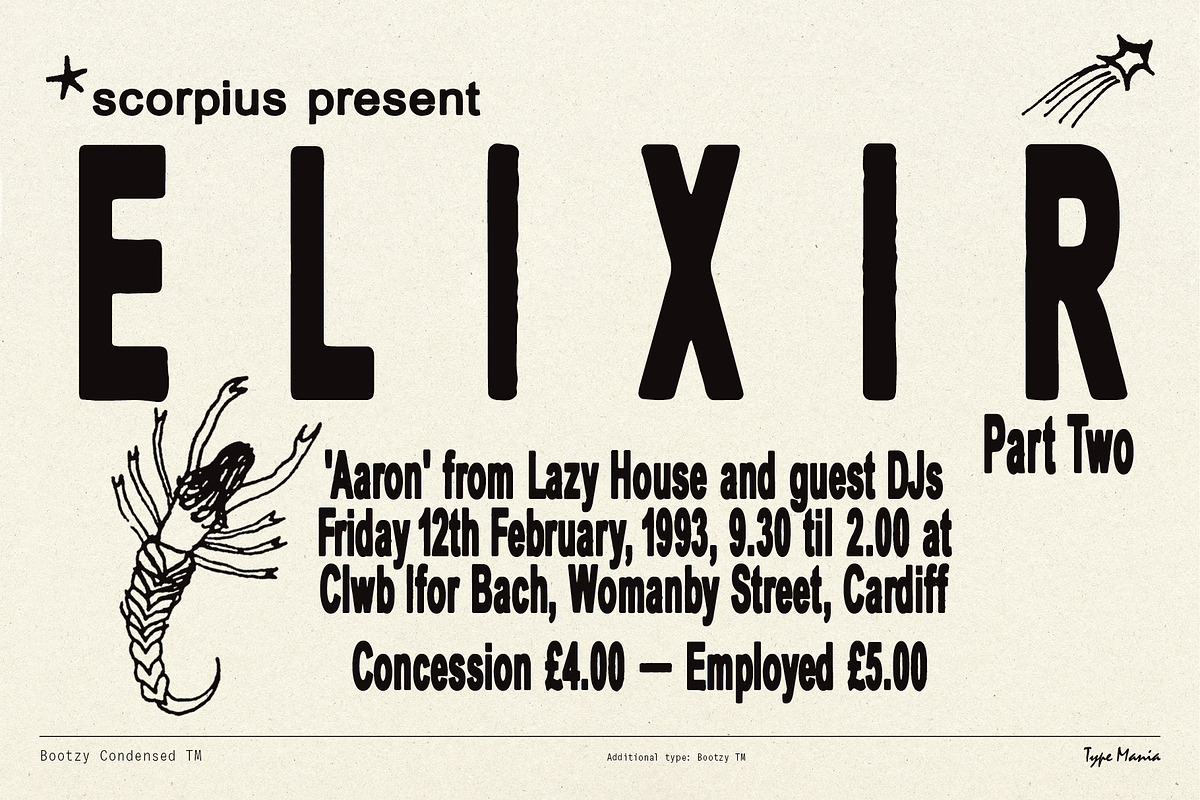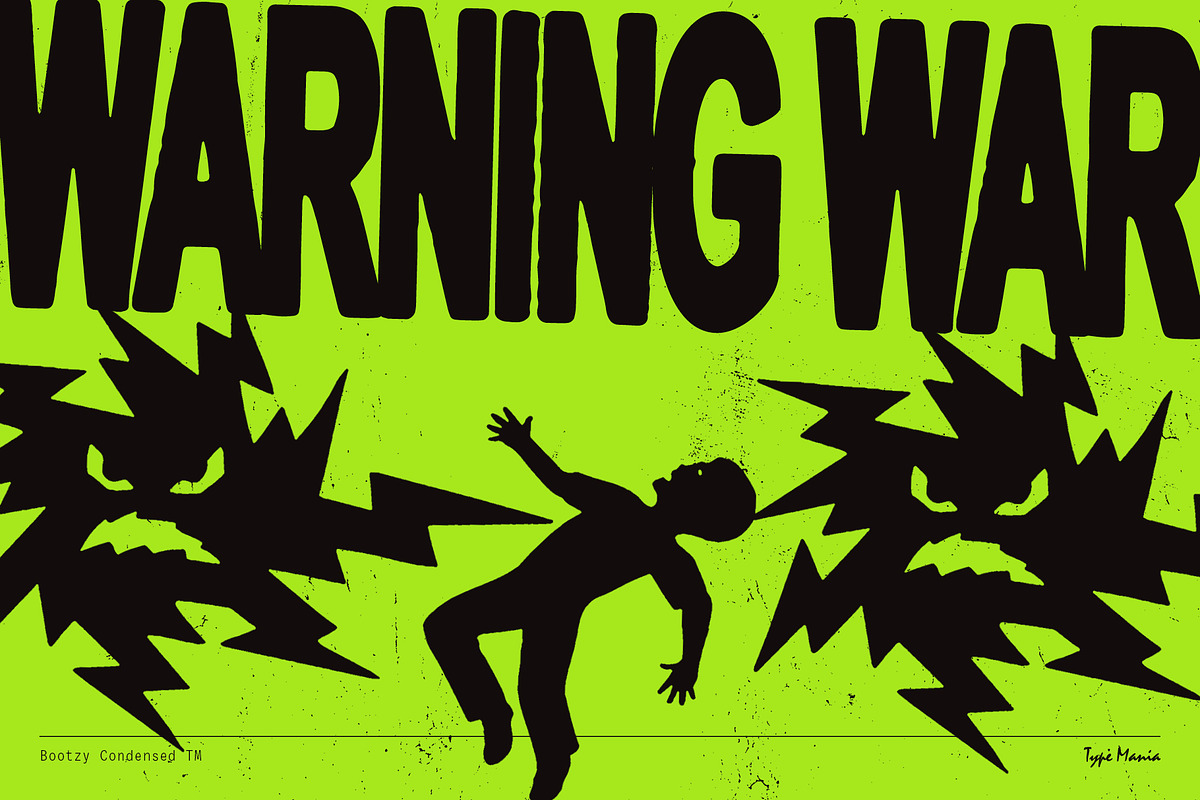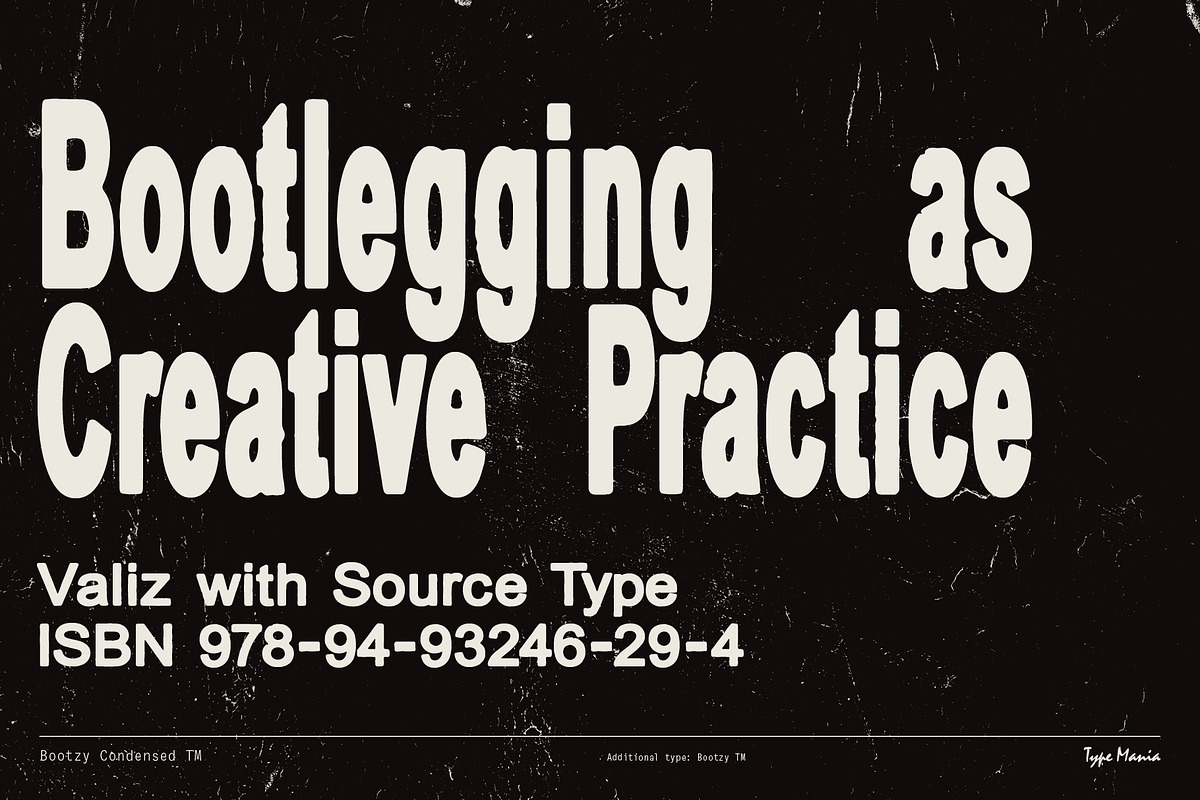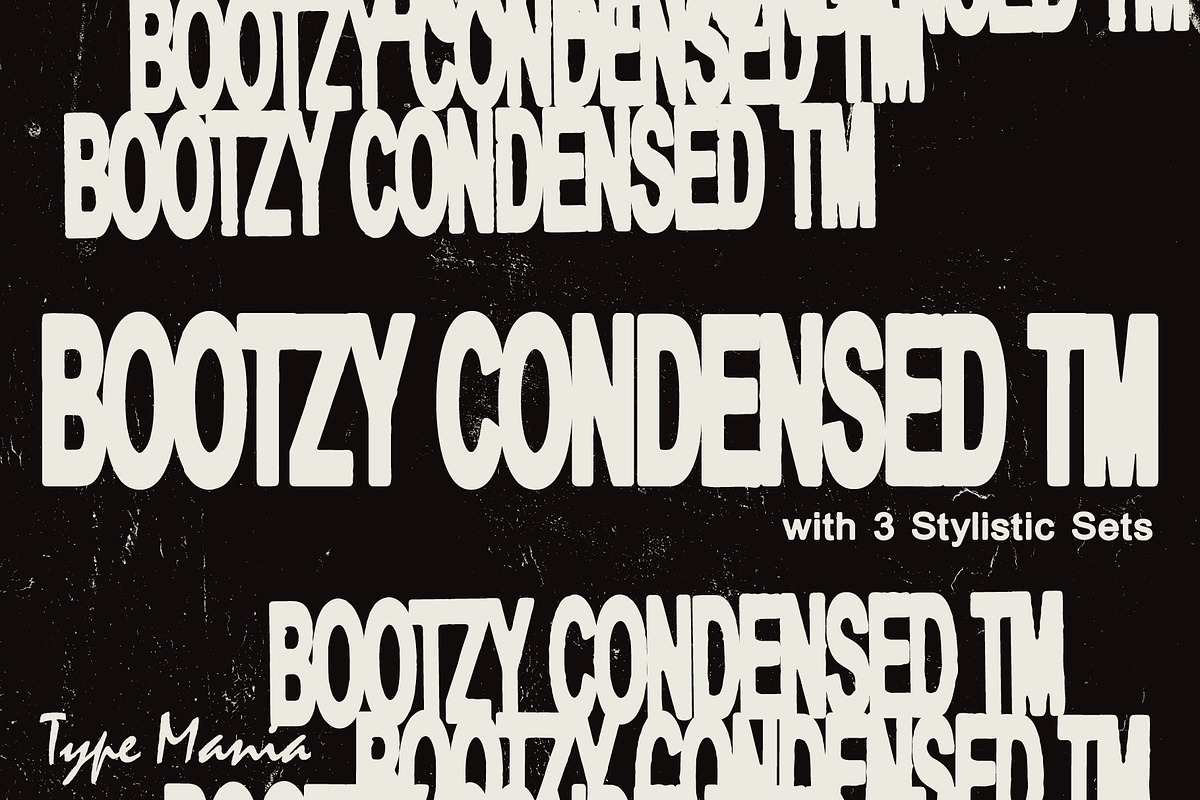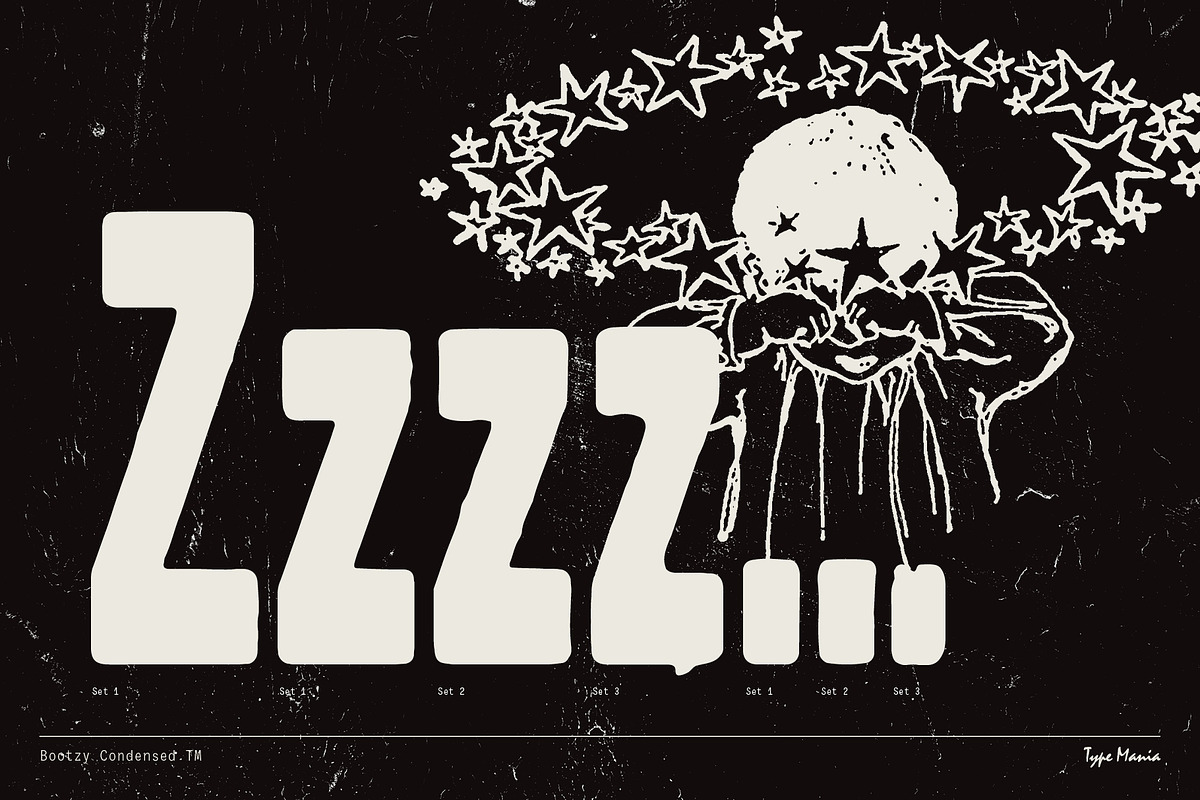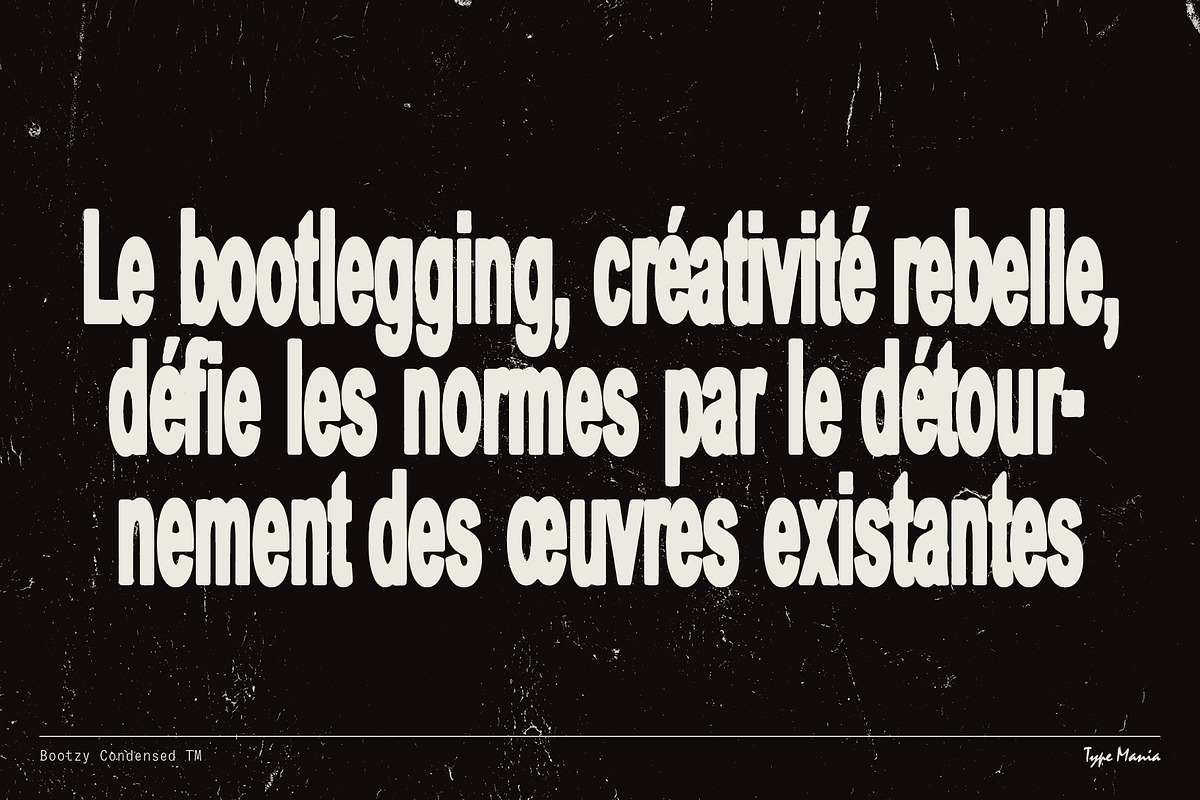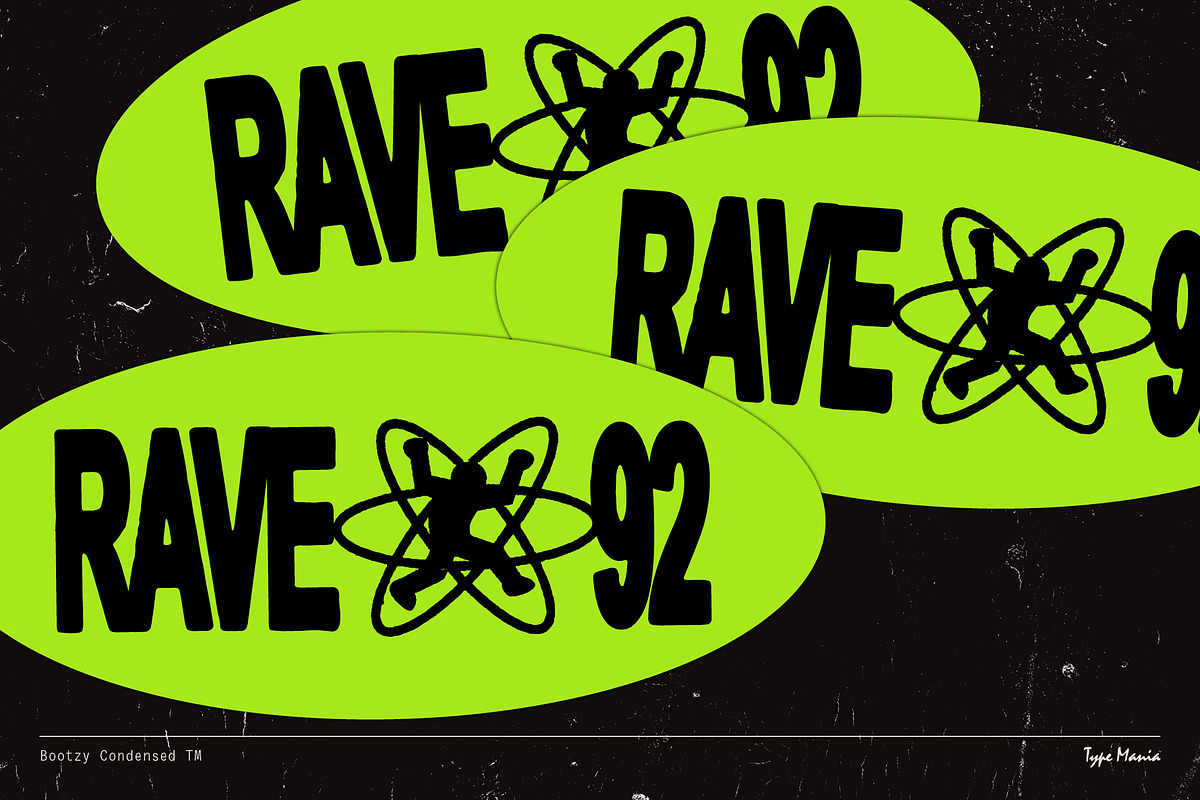
Bootzy Condensed TM – Rugged Font
Introducing Bootzy Condensed TM, a rugged display sans serif born from and for the creative underground. Inspired by the DIY ethos of bootlegging, this font is perfect for flyers, zines, and rebellious expressions all over.
OpenType features
- 3 stylistic sets
- The font is programmed to automatically shift between the stylistic sets whenever the same glyphs are typed side by side